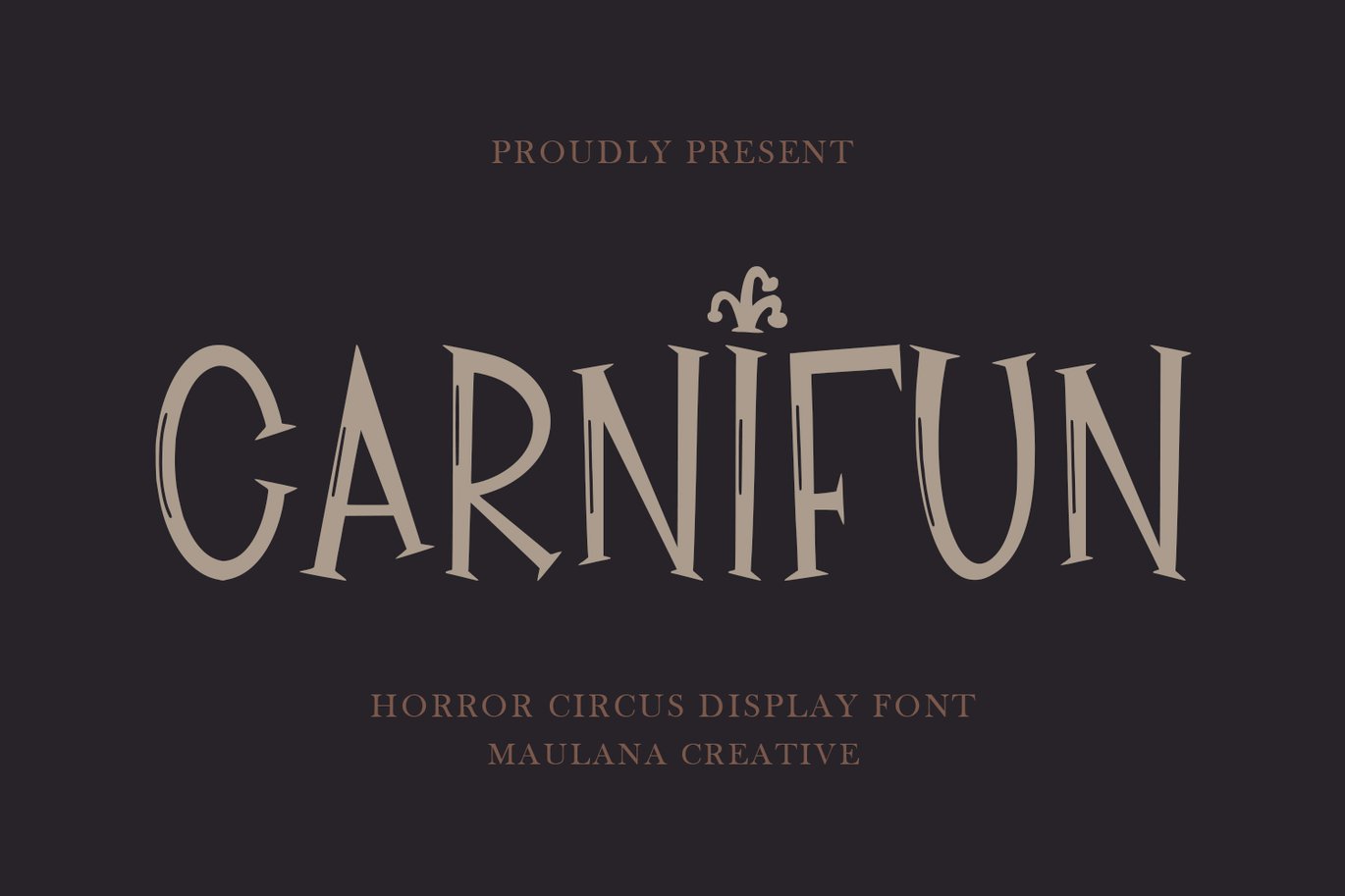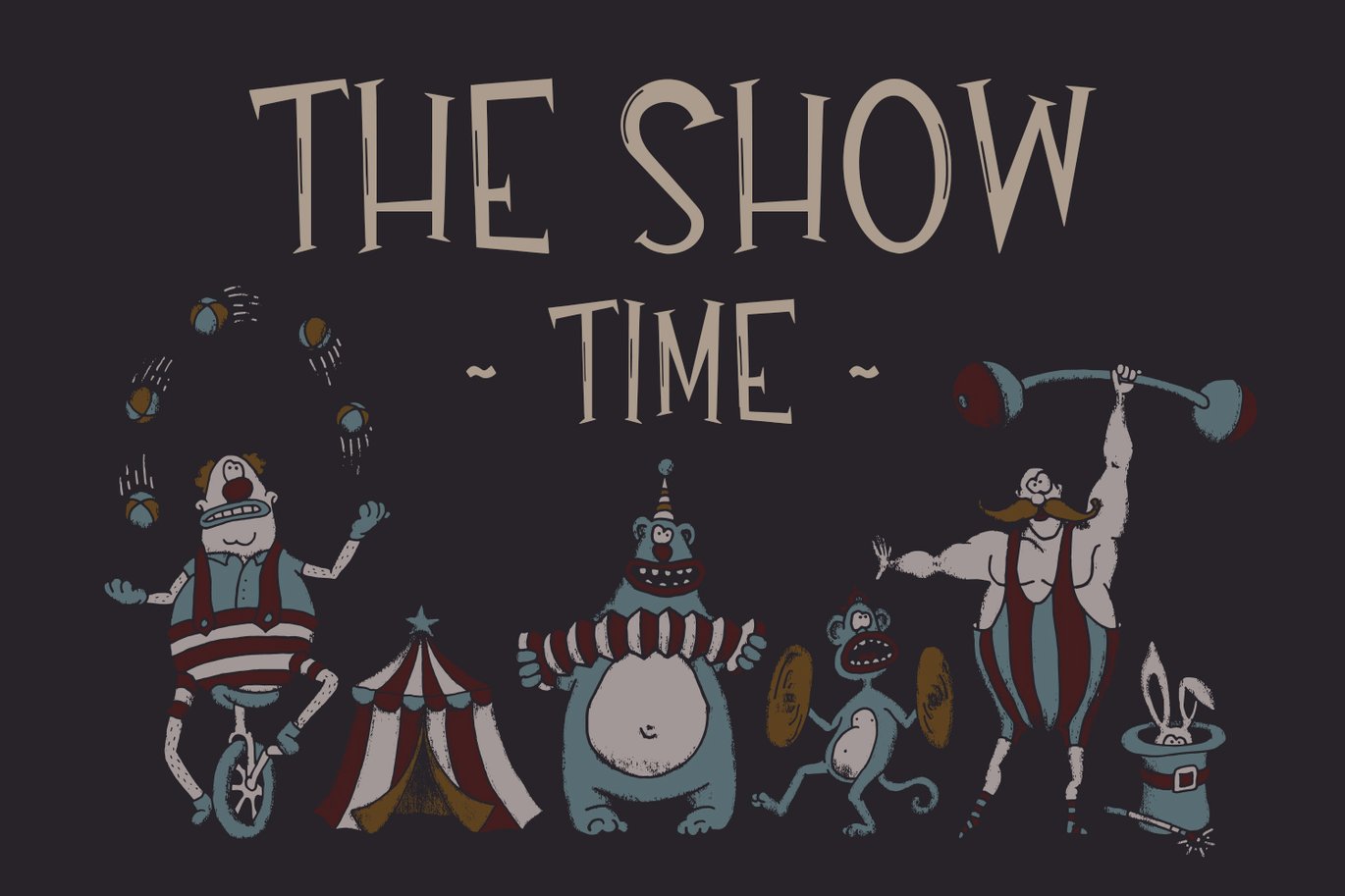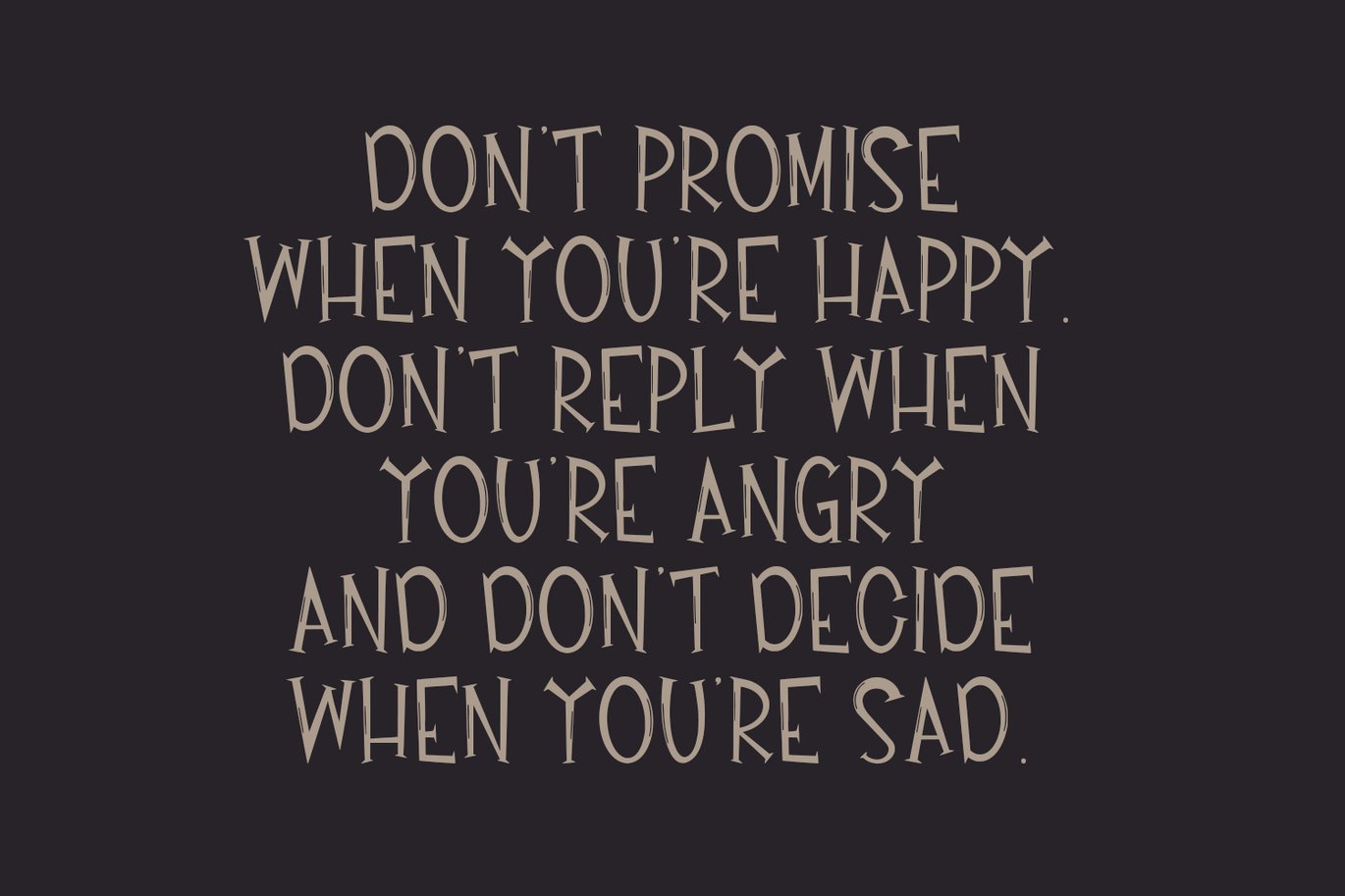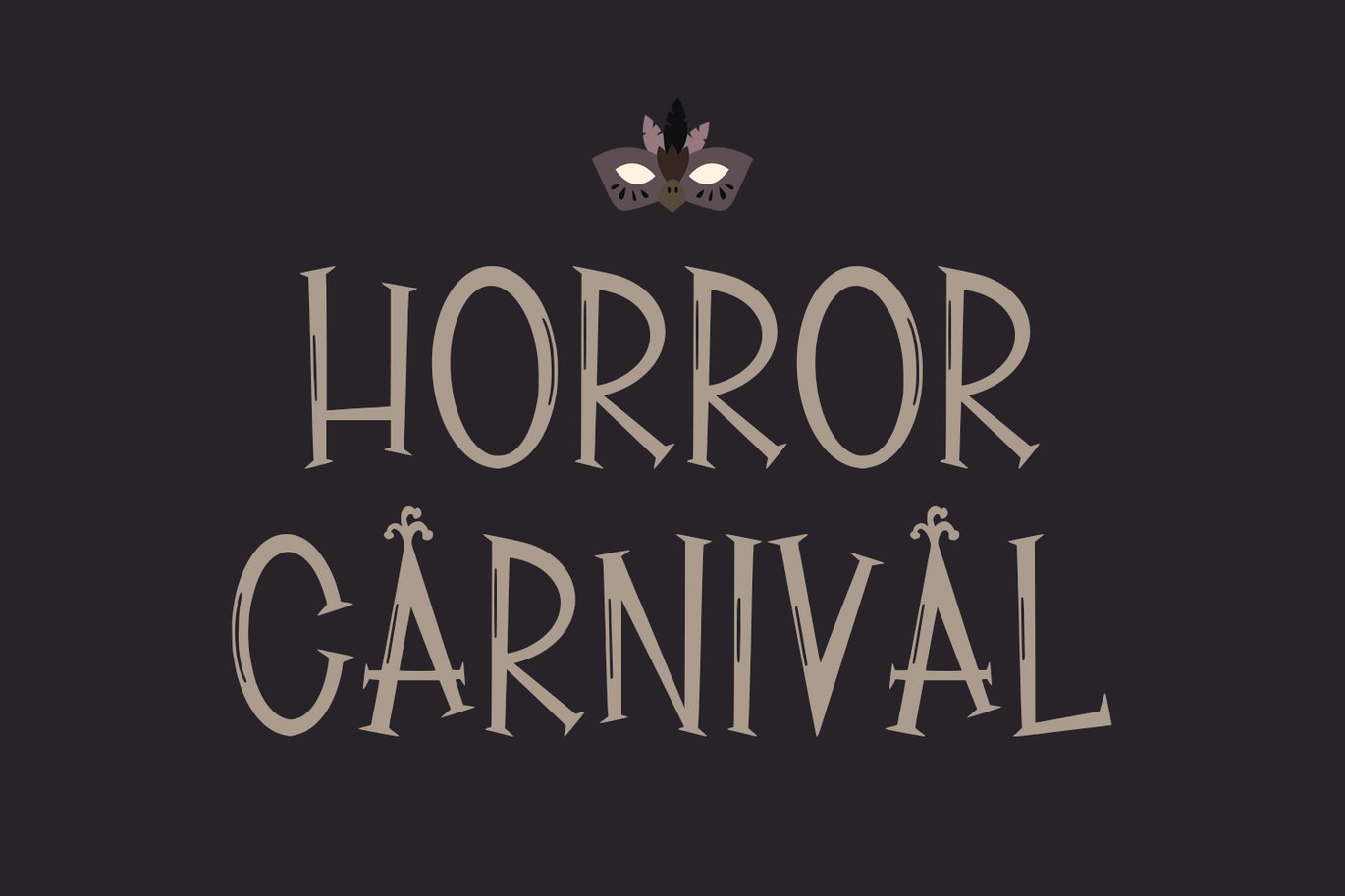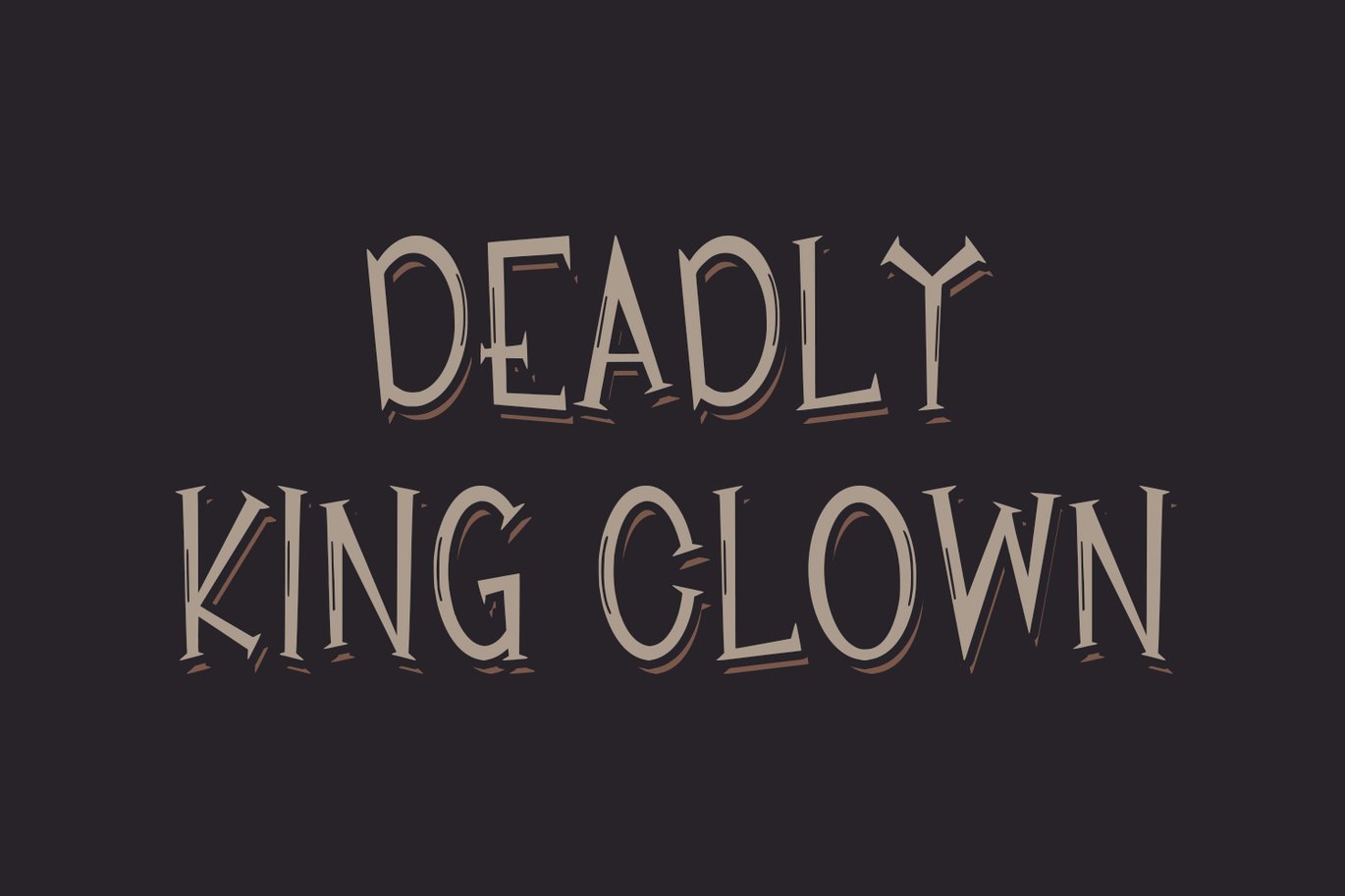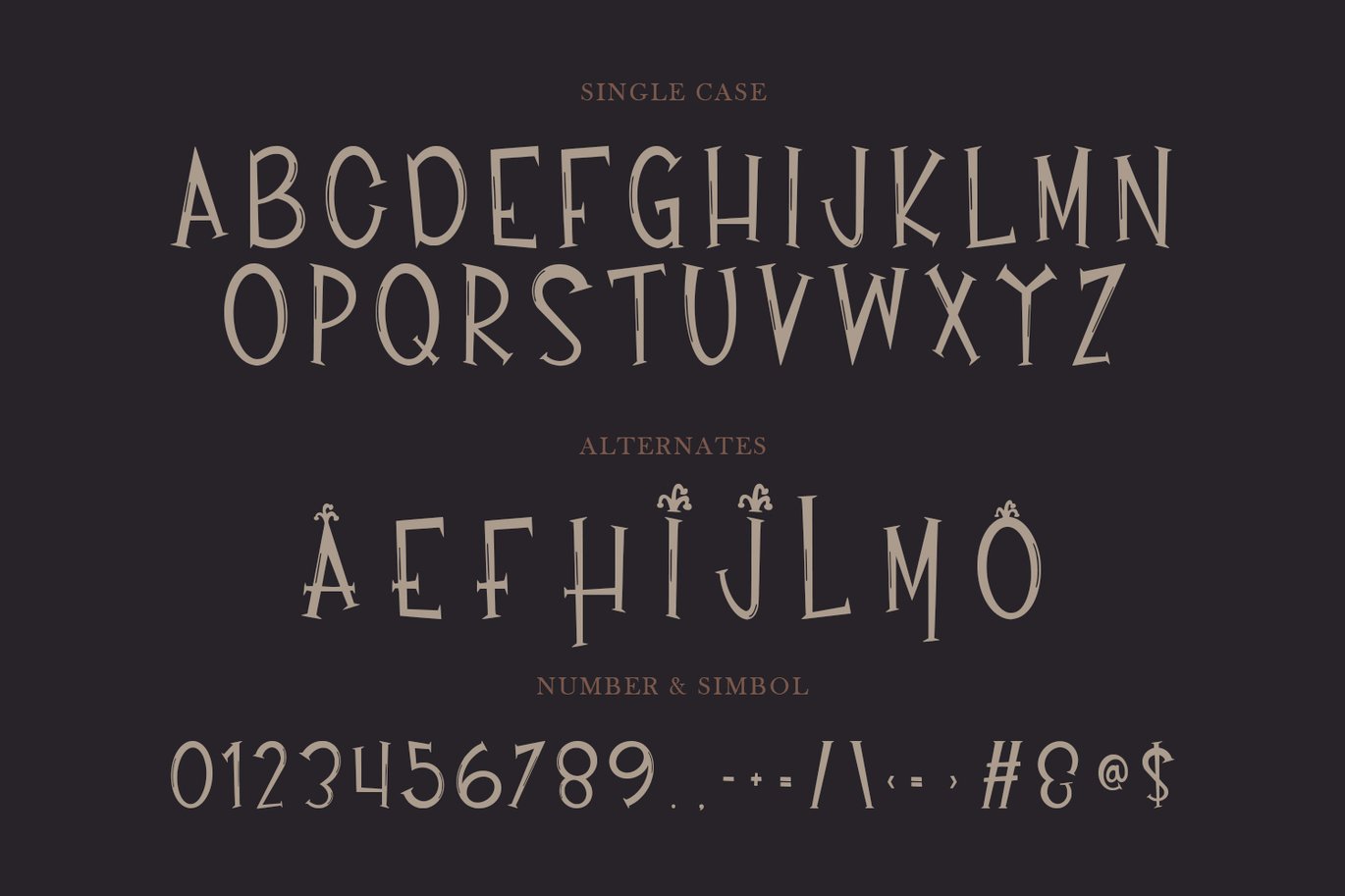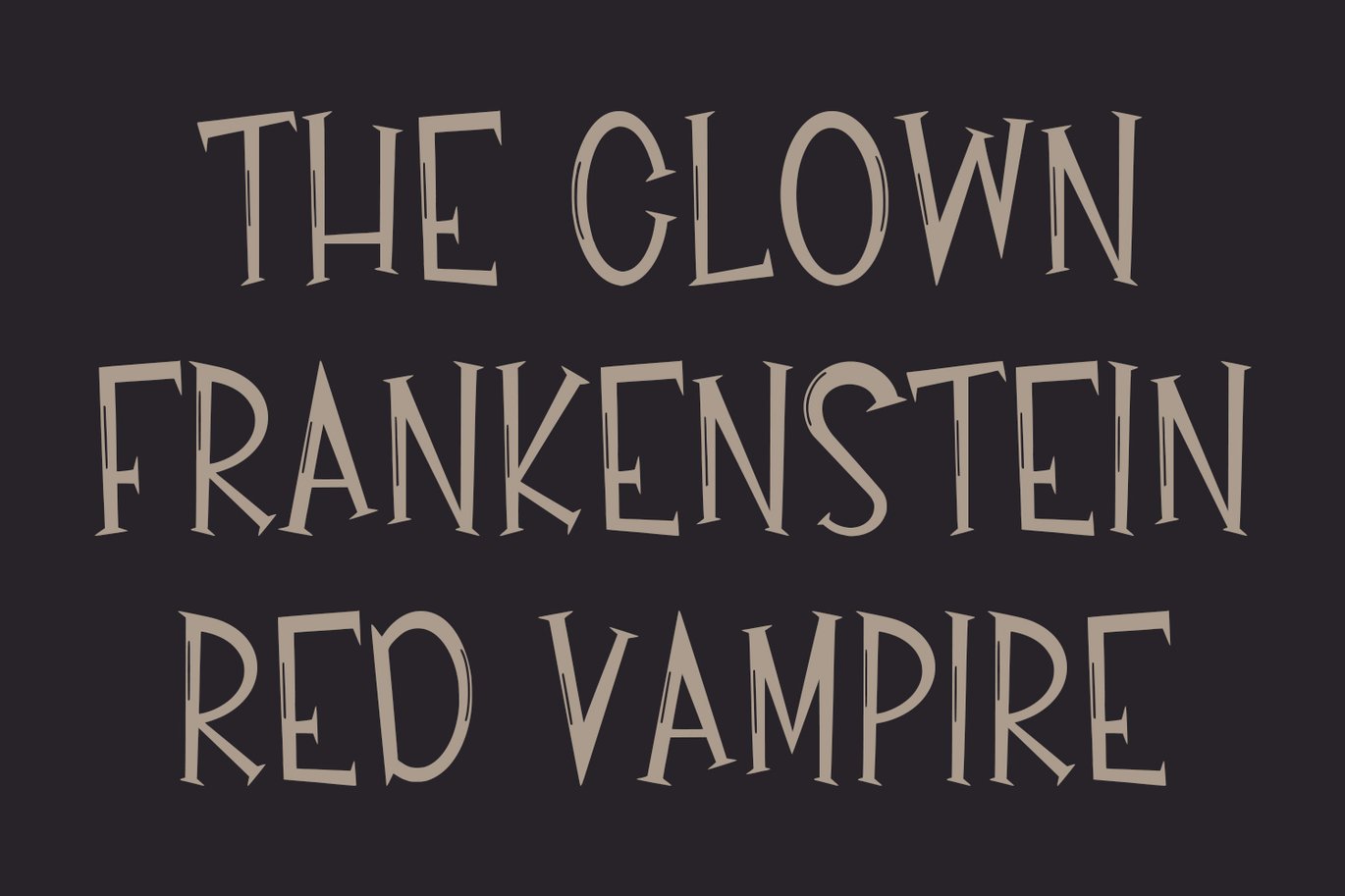
Carnifun Horror Circus Display Font
Carnifun horror circus display font. Heavy stroke, fun character with a bit of ligatures. To give you an extra creative work. Carnifun horror circus display font support multilingual more than 100+ language. This font is good for logo design, Social media, Movie Titles, Books Titles, a short text even a long text letter and good for your secondary text font with script or serif. Make a stunning work with Carnifun horror circus display font.